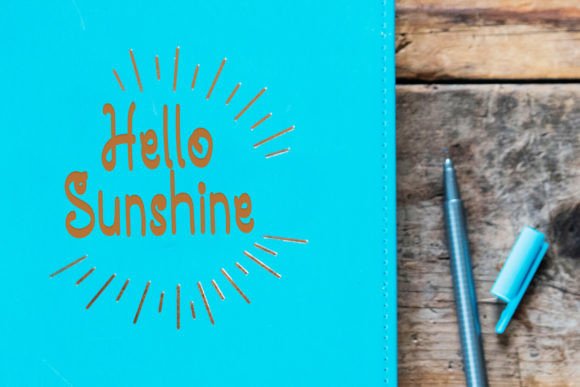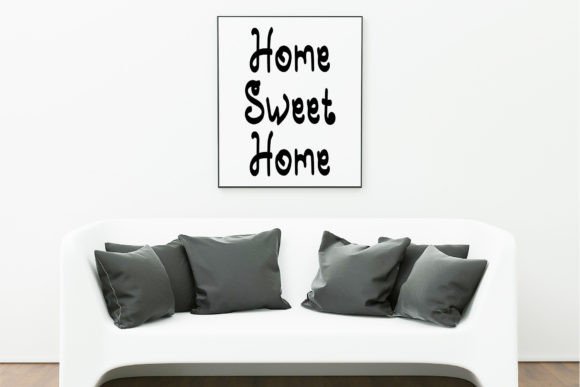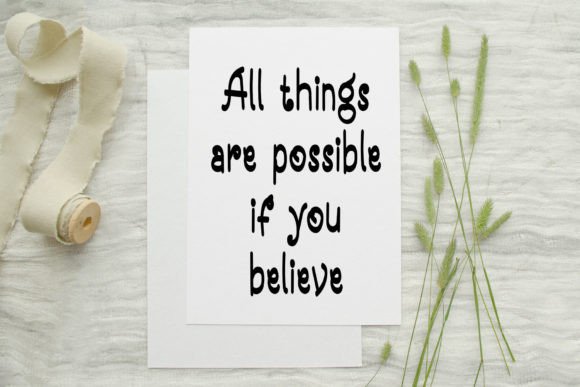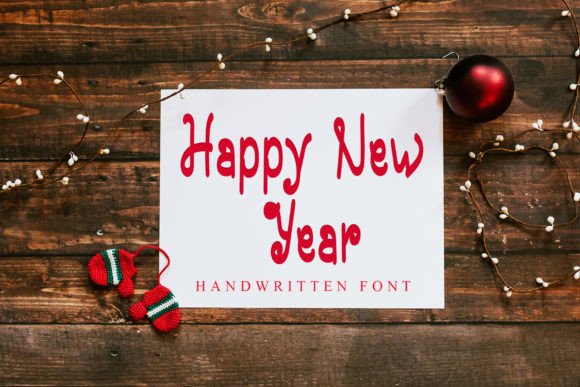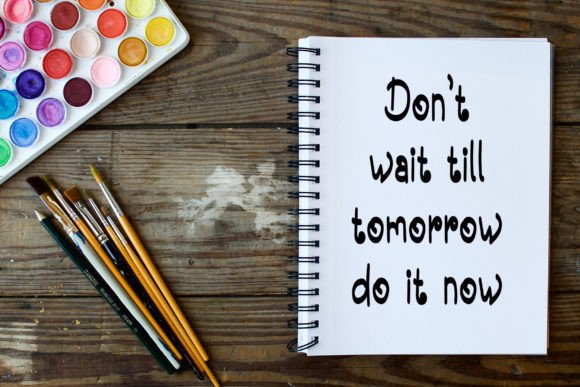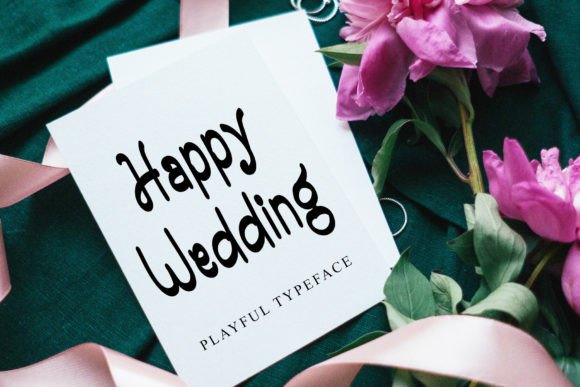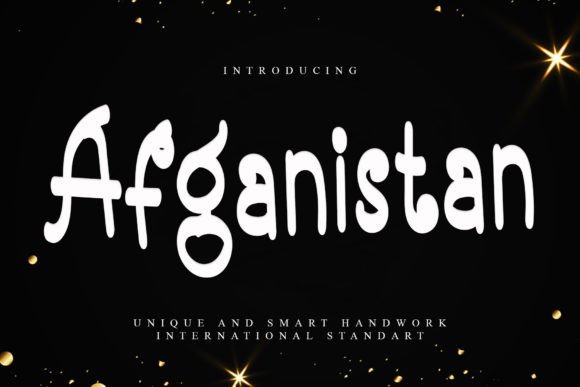
Discover the Unique Elegance of Afganistan Font
In the world of typography, few fonts manage to capture the essence of elegance and handmade charm as effectively as the Afganistan font. This exquisite typeface is designed to bring a touch of sophistication and personal warmth to a wide array of design projects, from wedding invitations and greeting cards to billboards, logos, and business cards. With its unique blend of classic appeal and modern versatility, Afganistan font is poised to become a favorite among designers and crafters looking to infuse their creations with a distinctive character.
The Handmade Touch
One of the standout features of the Afganistan font is its varied baseline, which has been artfully crafted to reflect a handmade touch. This thoughtful design element ensures that each letter and word appears as if it were penned by hand, adding a layer of warmth and personality to any text. Unlike more uniform and mechanized fonts, Afganistan brings a level of human touch that can make any design feel more approachable and engaging.
Beyond Simple Text: Bringing Creations to Life
The Afganistan font does more than simply deliver words on a page; it brings creations to life. By imbuing text with a sense of elegance and whimsy, this font allows designers to transform their ideas into tangible expressions of their vision. Whether you’re crafting a romantic wedding invitation or a bold billboard advertisement, Afganistan font helps to ensure that your message is conveyed with style and sophistication.
Unleashing Creative Potential with PUA Encoding
Afganistan font is also equipped with PUA (Private Use Area) encoding, which allows users to effortlessly access all glyphs and swashes. This feature opens the doors to boundless creative expressions, enabling designers to experiment with a wide range of typographic variations and flourishes. With PUA encoding, you can easily incorporate special characters, ligatures, and decorative elements into your designs, taking your typography to new heights of creativity and innovation.
Crafted to Perfection: Form and Function in Harmony
Crafted to perfection, the Afganistan font represents a breathtaking execution of form and function, seamlessly integrated into a one-of-a-kind typeface. Its gentle strokes and thoughtful design ensure that it is not only aesthetically pleasing but also highly legible and versatile. Whether you’re working on a large-scale advertising project or a small, personal craft, Afganistan font is designed to meet your needs, offering a level of quality and performance that is hard to match.
Ideal for a Variety of Design Projects
The versatility of the Afganistan font makes it an ideal choice for a wide range of design projects. Here are just a few examples of how this beautiful font can be used:
• Wedding Invitations: Add a touch of romance and elegance to your wedding invitations with Afganistan font.
• Greeting Cards: Create personalized and heartfelt greeting cards for any occasion.
• Billboards: Make a bold statement with Afganistan font on your next billboard design.
• Logos: Use Afganistan font to create a unique and memorable logo for your business or brand.
• Business Cards: Stand out from the crowd with beautifully designed business cards featuring Afganistan font.
In conclusion, the Afganistan font is a unique and elegant typeface that offers a wide range of creative possibilities for designers and crafters. With its handmade charm, PUA encoding, and versatile design, Afganistan font is the perfect choice for anyone looking to add a touch of sophistication and personality to their design projects. Whether you’re working on a wedding invitation, a billboard, or a business card, Afganistan font is sure to bring your creations to life in a way that is both beautiful and unforgettable.